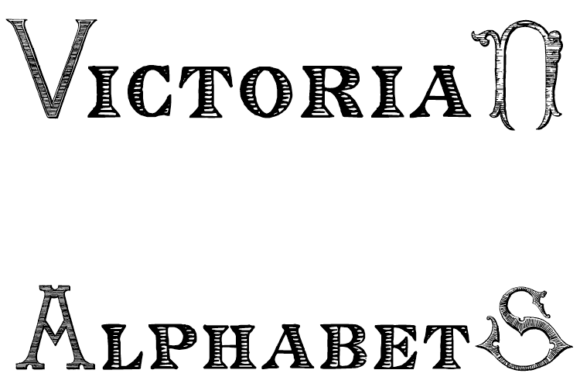
Victorian Alphabets Font
Journey to the era of Victorian elegance with Victorian Alphabets Font, a display font that exudes timeless sophistication and modern charm. Crafted by the skilled hands at Intellecta Design, this font is a visual masterpiece that transforms your creative visions into captivating realities.
Victorian Alphabets Font isn't just a collection of letters; it's an artistic expression that breathes life into your designs. Its bold strokes and imposing presence demand attention, making it the perfect choice for headlines, posters, logos, and branding materials that demand an unforgettable impact.
Imagine your words taking center stage, adorned with the regal elegance of Victorian Alphabets Font. Its intricate details and graceful curves evoke a sense of grandeur, elevating your designs to new heights of visual appeal. This font is not merely a tool; it's an artistic collaborator that elevates your creations, transforming them into works of art that speak volumes.
With Victorian Alphabets Font, your designs will transcend the ordinary and enter the realm of the extraordinary. Its versatility knows no bounds, adapting effortlessly to a wide range of design aesthetics, from vintage-inspired elegance to contemporary minimalism. Whether you're crafting a timeless logo, an eye-catching poster, or an unforgettable social media graphic, Victorian Alphabets Font will be your steadfast companion, guiding you towards design excellence.
Unleash the boundless potential of Victorian Alphabets Font and witness the remarkable transformation of your creative ideas. Its timeless beauty and modern appeal will captivate your audience, leaving an indelible mark on their minds. Embrace the Victorian era's grandeur and elevate your designs to new heights of sophistication and visual impact. Dare to be bold, dare to be different, and let Victorian Alphabets Font lead the way.